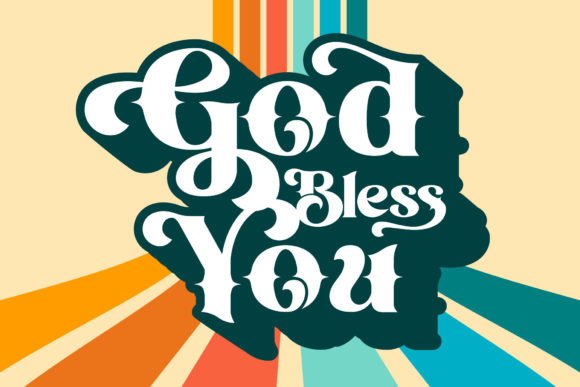
Step into a world of vintage charm and retro elegance with Big Dream Vintage Font, the display font that will transport you back in time. This captivating font, meticulously crafted by the talented HeroMan, exudes a cool and playful vibe, adding a touch of nostalgia and fun to your designs.
Journey through the annals of history as you explore the myriad possibilities offered by Big Dream Vintage. Let your imagination soar as you envision your headlines, magazines, logos, and branding adorned with this enchanting font. Its retro aesthetic is a breath of fresh air, evoking memories of simpler times and capturing the essence of classic Americana.
With Big Dream Vintage, you'll have the power to create designs that stand out from the crowd, leaving a lasting impression on your audience. Its unique glyphs and ligatures, accessible with ease thanks to PUA encoding, provide endless opportunities for creativity and self-expression. Unleash your inner artist and let your designs take center stage.
Whether you're a seasoned designer or just starting out, Big Dream Vintage Font is the perfect companion for your creative endeavors. Its versatility knows no bounds, adapting seamlessly to a wide range of projects, from eye-catching posters to timeless logos. Experience the magic of Big Dream Vintage and let your designs transcend the ordinary.